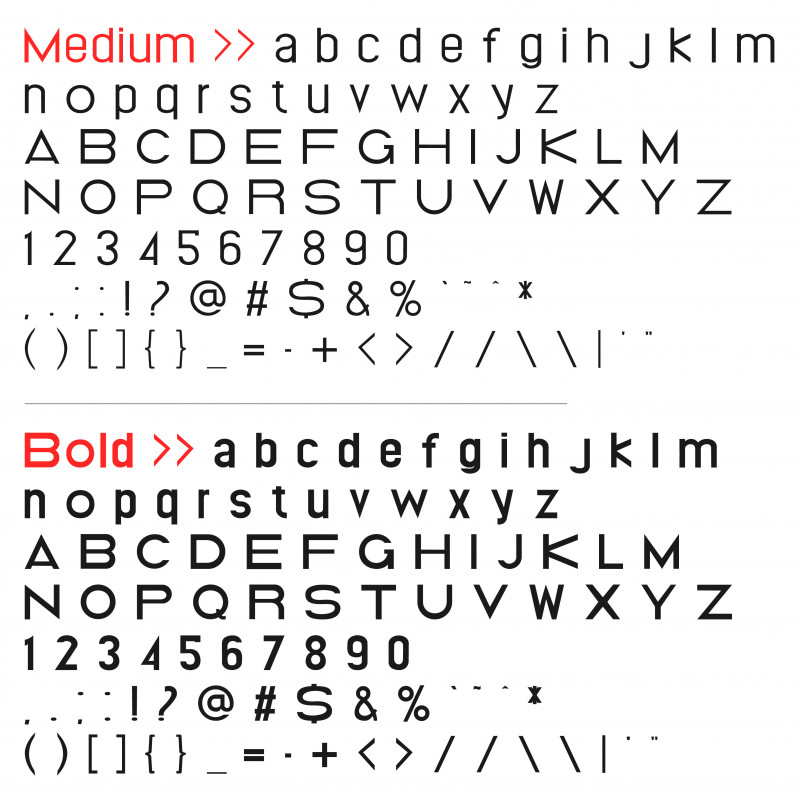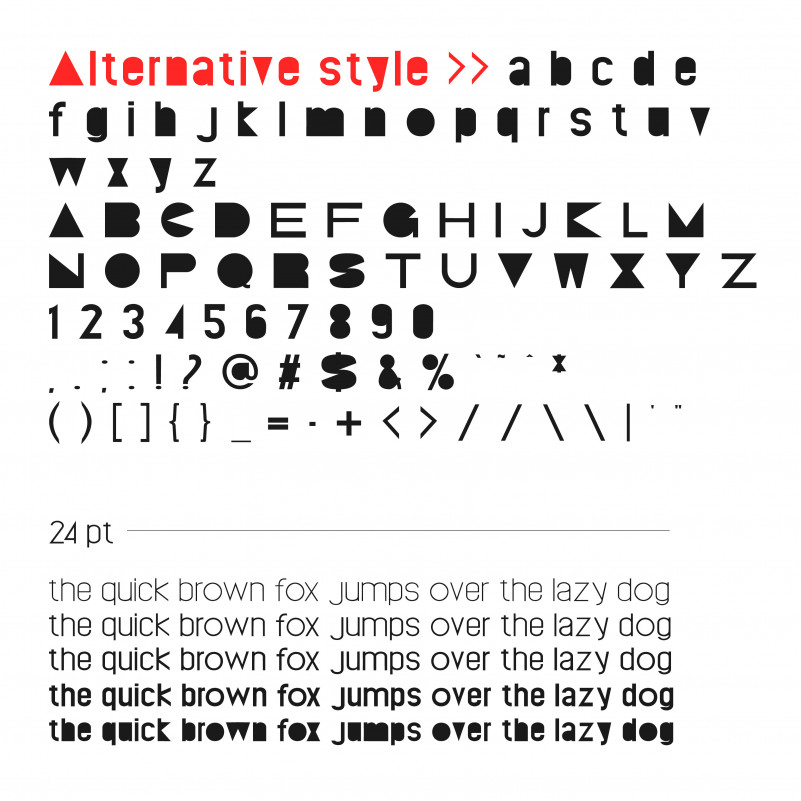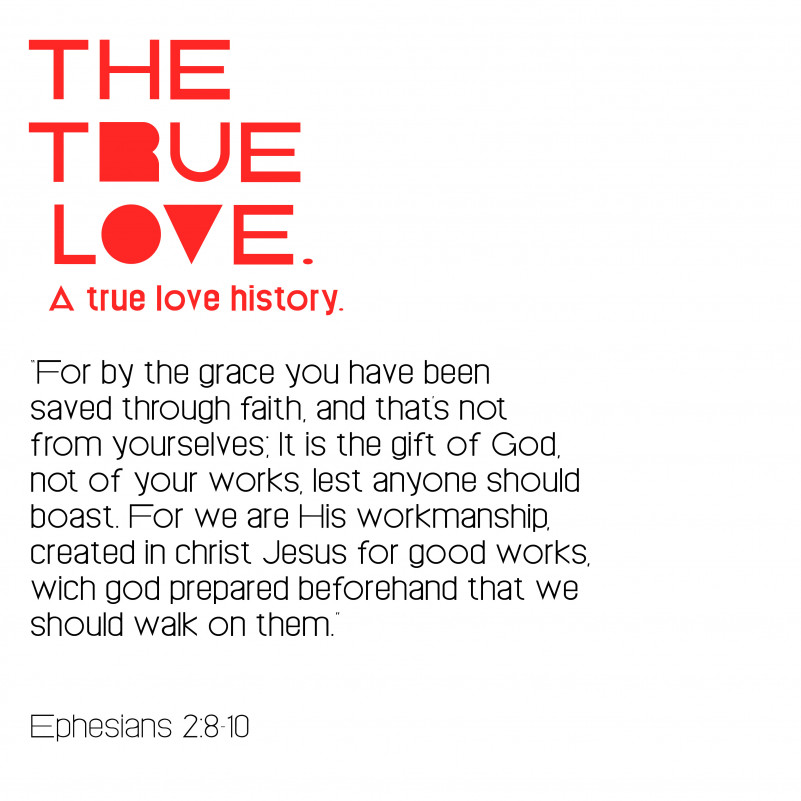
EXCÊNTRICA Display Font – A simple, versatile, and flexible
display font family with 4 weights and
1 alternative style.
Excêntrica can be applied in titles,
package design, etc..